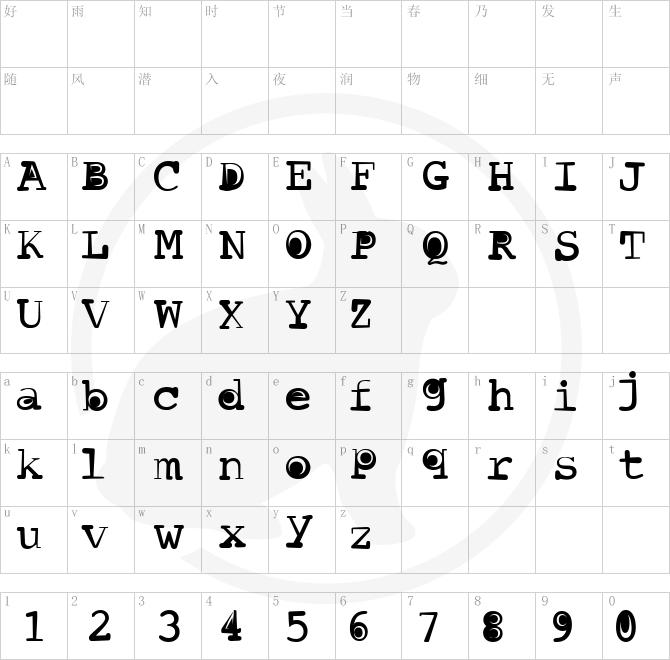
- Font Name:Baby Moons
Baby-Moons-Bold.ttf is a very beautiful artistic font, Baby-Moons-Bold.ttf is widely used in the design and printing of various books and pictures,Baby-Moons-Bold.ttf has a strong visual impact,Baby-Moons-Bold.ttf is a commonly used font in newspapers, magazines and books, and is used in posters, e-commerce Poster design, store design, logo design, font design and other fields.Baby-Moons-Bold.